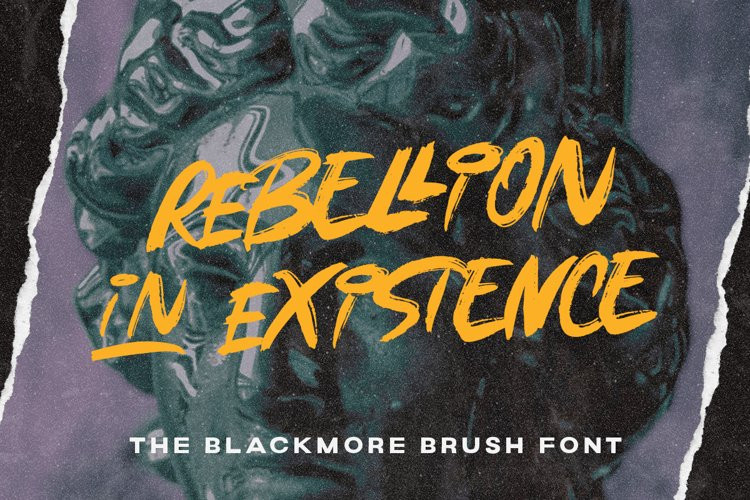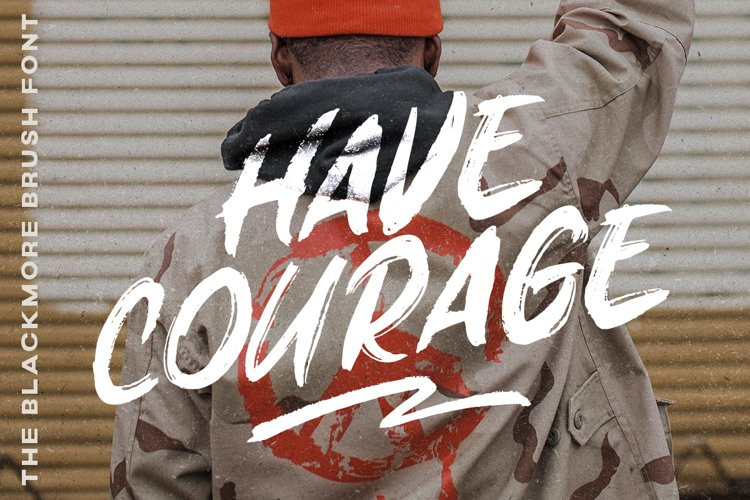
The Blackmore Font
The Blackmore FontThe Blackmore is a bold hand drawn brush script which is purposely made for headline, display or logotype, and signature which need a standout appearing. This font is also suitable to be applied especially in logo, and the other various formal forms such as invitations, labels, logos, magazines, books, greeting / wedding cards, packaging, fashion, make up, stationery, novels, labels or any type of advertising purpose.